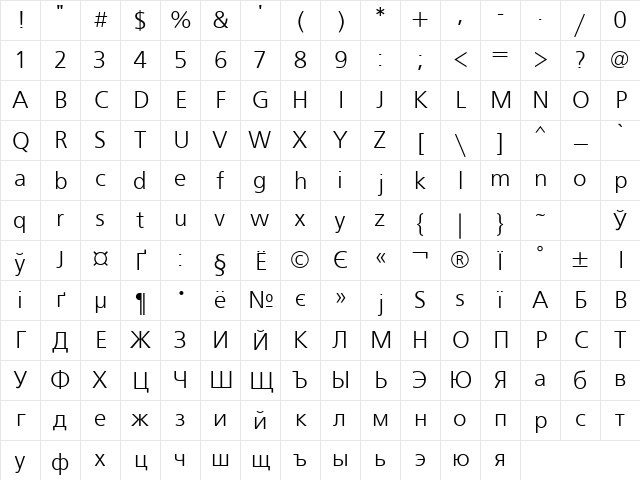
Complete FreeSet Cyrillic glyph index. Displaying only characters natively supported by FreeSet Cyrillic font.
FreeSet is a composed and adaptable typeface that performs quietly and consistently across a wide range of design contexts.